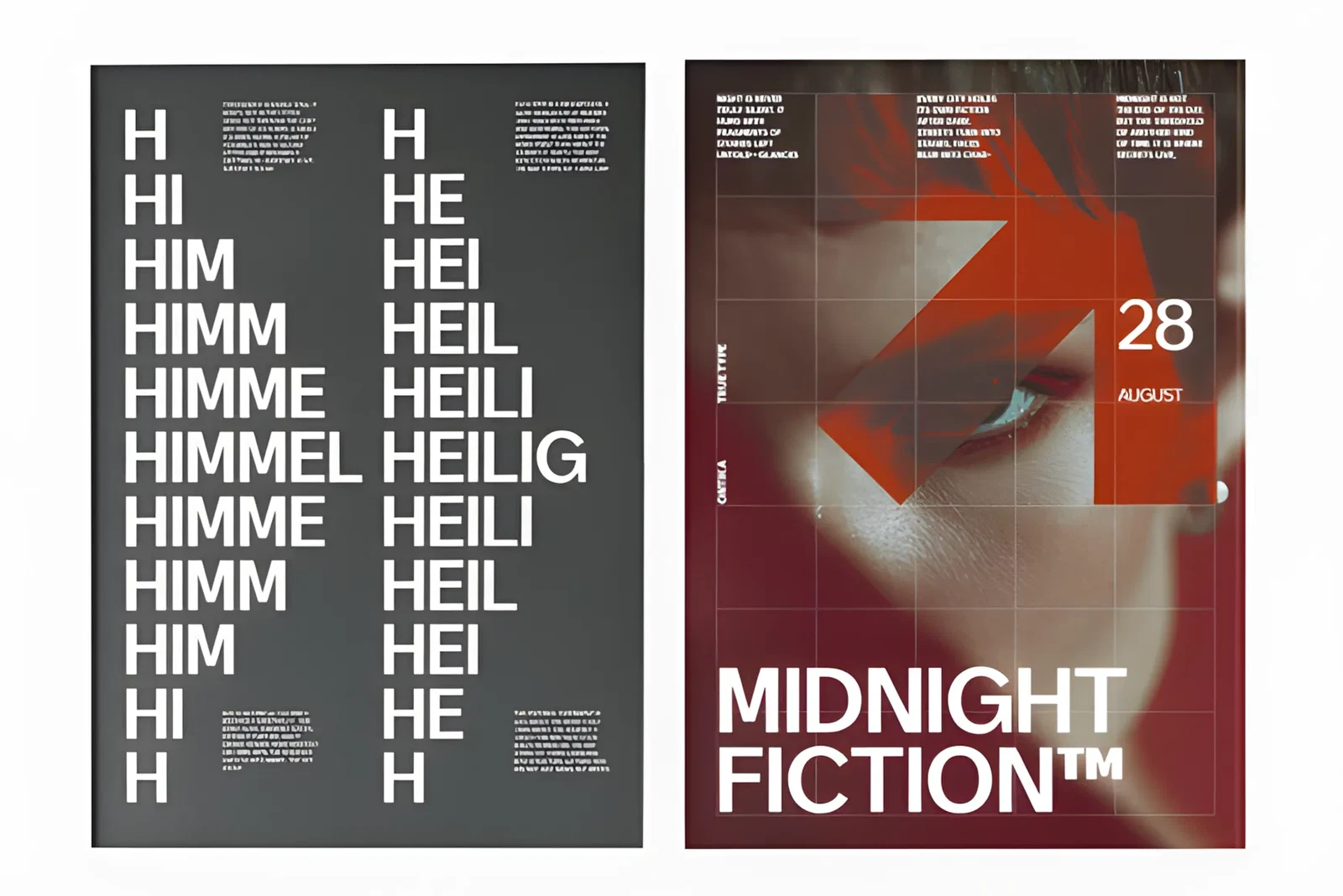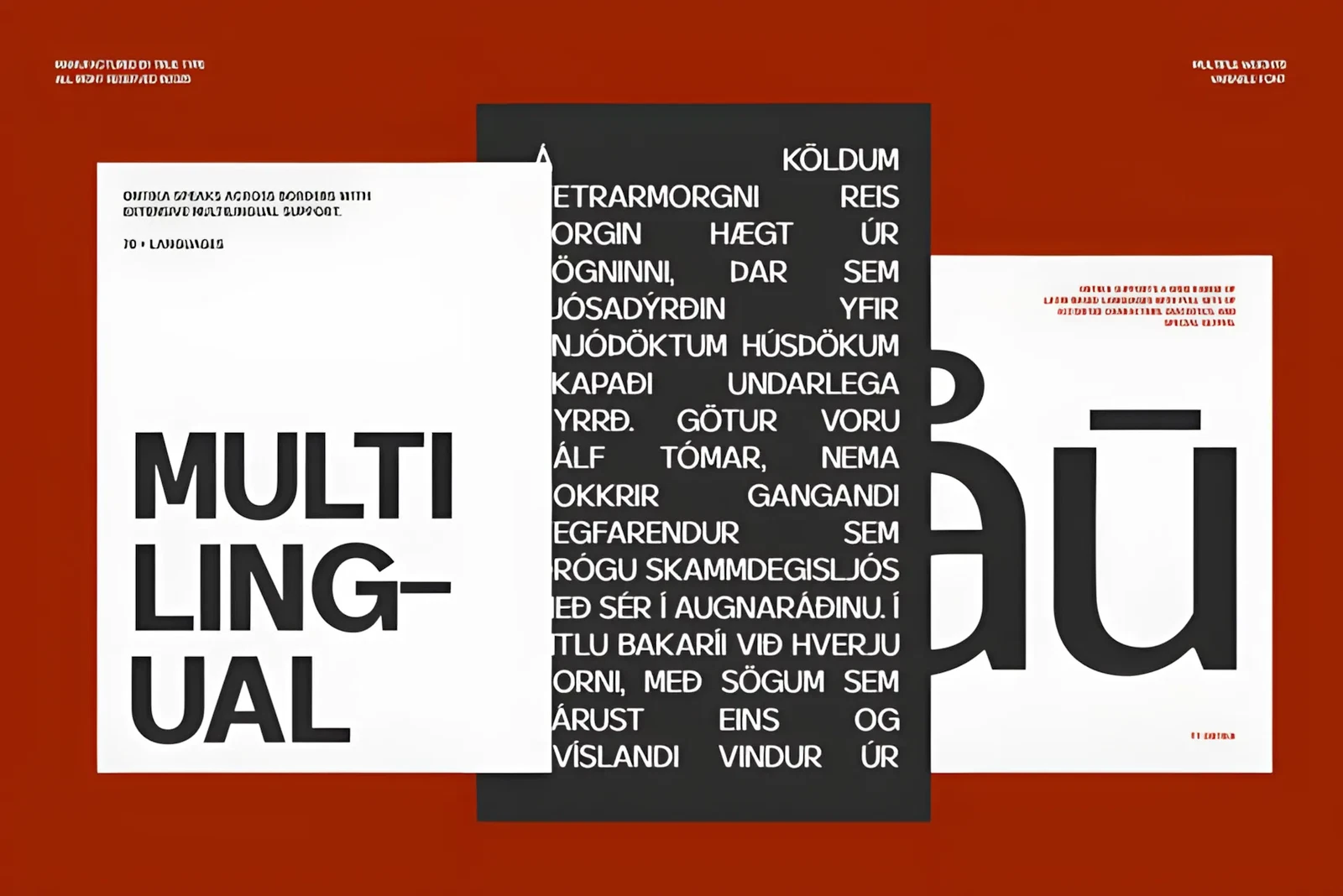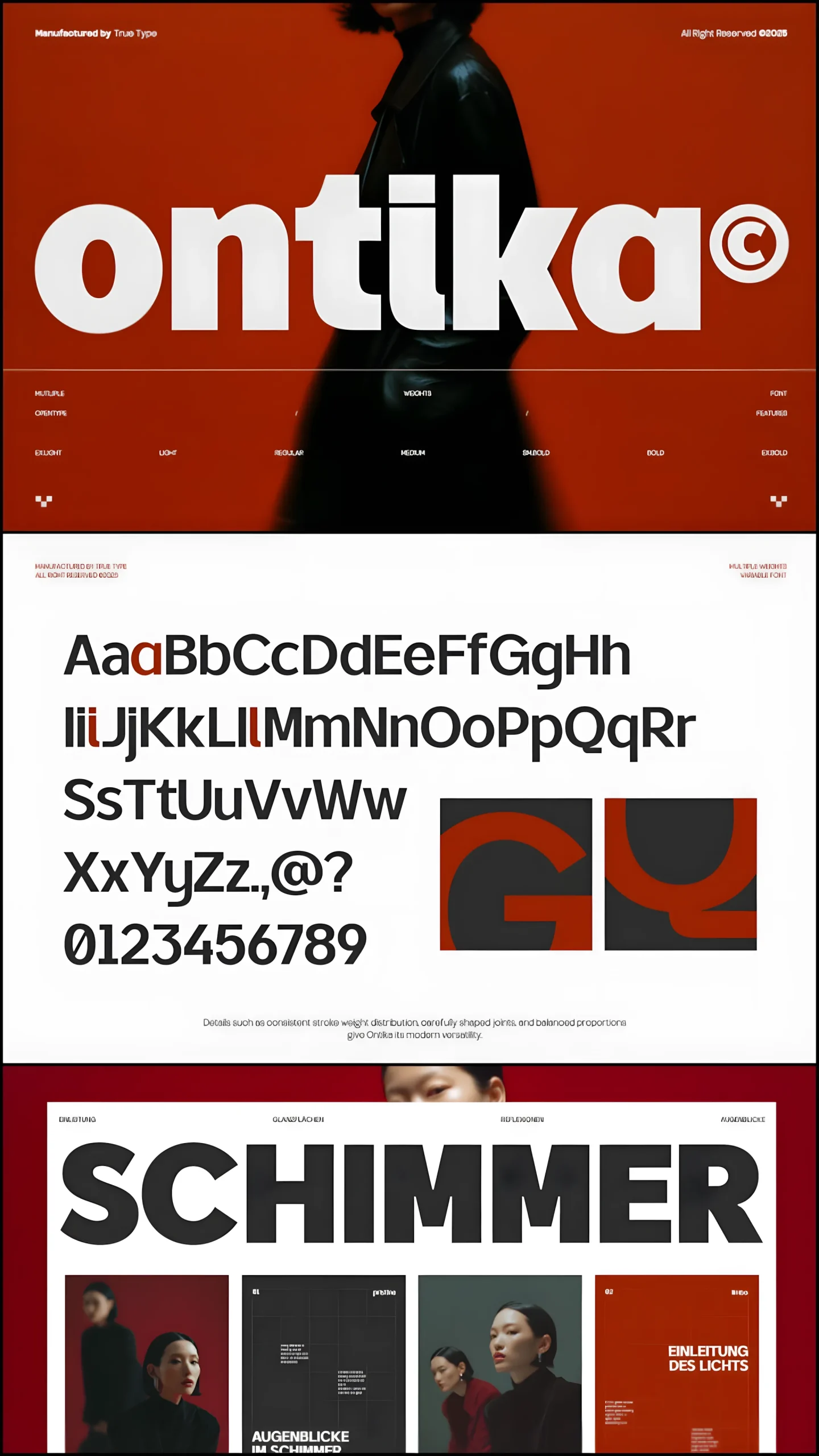
Typography often defines how a brand feels before a single word is read. TRT Ontika Font is designed with that responsibility in mind. It is a modern semi-bold sans-serif typeface that combines clean structure with subtle individuality, making it suitable for projects that need clarity without losing character.
Rather than leaning into extremes, TRT Ontika positions itself as a dependable, contemporary font that works across branding, editorial layouts, and digital interfaces.
A Confident Typeface With Subtle Personality
TRT Ontika is built on a strong geometric foundation, but it avoids feeling cold or mechanical. Small design details introduce softness and flexibility, allowing the font to feel human while remaining precise.
This balance gives the typeface a confident voice. It feels assertive enough for headlines and logos, yet calm enough for continuous use across larger design systems.
The font communicates professionalism without becoming anonymous.
A Versatile Font Family With Multiple Weights
One of the most practical strengths of TRT Ontika is its broad weight range. The family includes:
- ExtraLight
- Light
- Regular
- Medium
- SemiBold
- Bold
- ExtraBold
This range allows designers to create complete typographic hierarchies using a single font family. Headlines, subheadings, body text, and UI labels can all remain visually consistent while still clearly differentiated.
This makes TRT Ontika especially useful for long-term projects and scalable design systems.
How TRT Ontika Feels in Layouts
When applied to real layouts, TRT Ontika feels structured and intentional. Text blocks remain readable and balanced, while display text carries a modern editorial tone.
The font performs particularly well in:
- uppercase headlines
- mixed-case editorial text
- clean, grid-based layouts
Spacing and proportions are carefully tuned, which helps layouts feel organized even before additional styling is applied.
Ideal Use Cases Across Design Fields
Branding and Visual Identity
TRT Ontika works well for brands that want to feel modern, reliable, and confident. It fits naturally into:
- visual identity systems
- logos and wordmarks
- brand guidelines
- corporate and creative branding
Its neutrality allows colors, imagery, and layout to define personality while typography maintains clarity.
Editorial and Publishing
In editorial design, TRT Ontika provides structure without distraction. It performs well in:
- magazines and journals
- reports and presentations
- digital publications
The availability of multiple weights makes it easy to create rhythm and hierarchy without switching fonts.
Digital Interfaces and Web Design
TRT Ontika is optimized for screen use and adapts smoothly to digital environments. It works well in:
- websites and landing pages
- dashboards and interfaces
- mobile and desktop applications
Multilingual and Technical Compatibility
The font includes extensive character support, covering 60+ languages, along with numbers and punctuation. This makes it suitable for international projects without the need for fallback fonts.
Its consistency and technical quality make it a reliable choice for designers working on long-term or multi-platform projects.
Why Semi-Bold Sans-Serif Fonts Stay Relevant
Semi-bold sans-serif fonts remain popular because they strike a balance between strength and readability. TRT Ontika fits perfectly into this category, offering enough weight to feel confident without sacrificing clarity.
This makes it especially effective for modern brands that want to communicate authority without aggression.
Who TRT Ontika Is Best For
This font is especially well suited for:
- graphic designers
- branding specialists
- editorial designers
- UI and UX professionals
- agencies and creative studios
It works equally well for digital-first products and print-based projects.
Final Perspective
TRT Ontika is a font built for clarity, balance, and modern communication. Its wide weight range, subtle personality, and clean construction make it a dependable foundation for branding, editorial, and interface design.
For designers looking for a contemporary sans-serif that supports structure without feeling generic, TRT Ontika offers a versatile and professional typographic solution that holds up across projects and platforms.